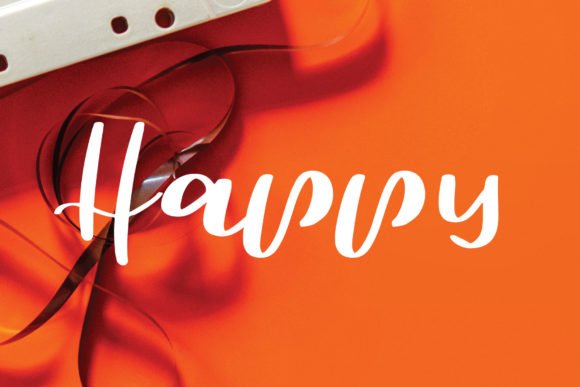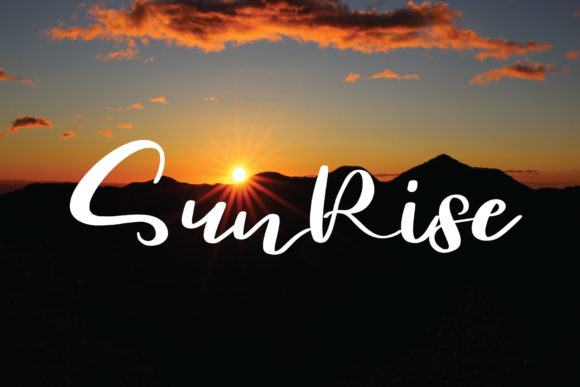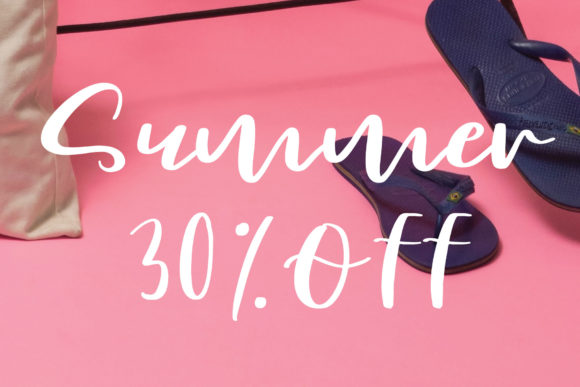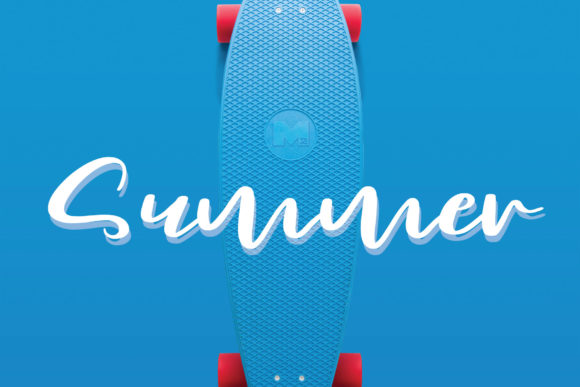
Unlocking the Magic of Handwritten Charm
Do you remember that moment when you first fell in love with a font? Maybe it was a quirky script that made your DIY project stand out from the rest. For me, it was the moment I discovered Happy Font – a sweet and charming script that turns any craft project into a true piece of art. The instant I typed out a message in Happy Font, I knew I had stumbled upon something special.
Happy Font is a versatile and playful typeface designed to add a touch of personality to your designs. Whether you’re a seasoned designer or a crafting enthusiast, this font is a valuable addition to your toolkit. With Happy Font, you can create beautiful and unique projects that showcase your creativity and style.
- Unique Characteristics: Happy Font features a unique, hand-drawn design with a playful and cheerful aesthetic, making it perfect for creating eye-catching and engaging content.
Designer Review: Happy Font
I recently had the chance to work with the Happy Font, and I must say it’s a mixed bag. Here are my honest thoughts:
- Fun and playful personality: The Happy Font is exactly as its name suggests – cheerful and fun. It’s perfect for creating eye-catching graphics and designs that need a pop of personality.
- Wide range of weights: The font offers a variety of weights, from light to bold, making it versatile for different design applications.
- Good legibility: The font is well-designed and easy to read, even at smaller sizes.
- Limited language support: The Happy Font only supports a limited number of languages, which can be a problem for global brands or organizations.
- Not ideal for formal or professional designs: While the font is great for playful designs, it may not be the best choice for formal or professional projects where a more conservative font is preferred.
- May not work well in small sizes: While the font is legible, it may not be the best choice for small text sizes, as it can become difficult to read.
The Happy Font is a fun and versatile font that’s perfect for creating playful designs. However, it may not be the best choice for formal or professional projects, or for global brands with limited language support. Overall, I would recommend the Happy Font for designers looking to add some personality to their designs, but with some limitations in mind.
Tips for Getting the Most Out of Happy Font
Here are some tips to help you get the most out of Happy Font:
- Use Happy Font in conjunction with other playful fonts to create a fun and engaging design.
- Experiment with different font sizes and colors to add visual interest to your design.
- Use Happy Font in headings and titles to draw attention to important information.
Here are some common use cases for Happy Font:
- Children’s book illustrations and design.
- Party invitations and decorations.
- Brand logos and marketing materials.
Alternatives to Happy Font for Designers
Lobster Font is a cursive, handwritten font ideal for titles, headings, and short paragraphs. It is best used for adding a touch of elegance and sophistication to your designs. Compared to Happy Font, Lobster Font has a more refined and luxurious feel, making it perfect for high-end branding and advertising.